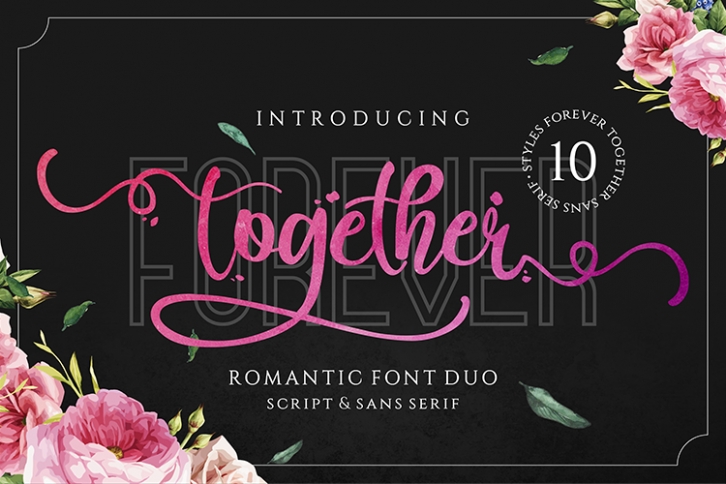
Forever Together - Romantic Font Duo Download
Forever Together is a gorgeous font that was realeased on January 19, 2019. The font can be used in many style contexts and design environments. Perfect for invitations, magazines, websites, logos, and more! It was designed by figuree and the file size is 10.88 MB. Thanks for checking out this font!